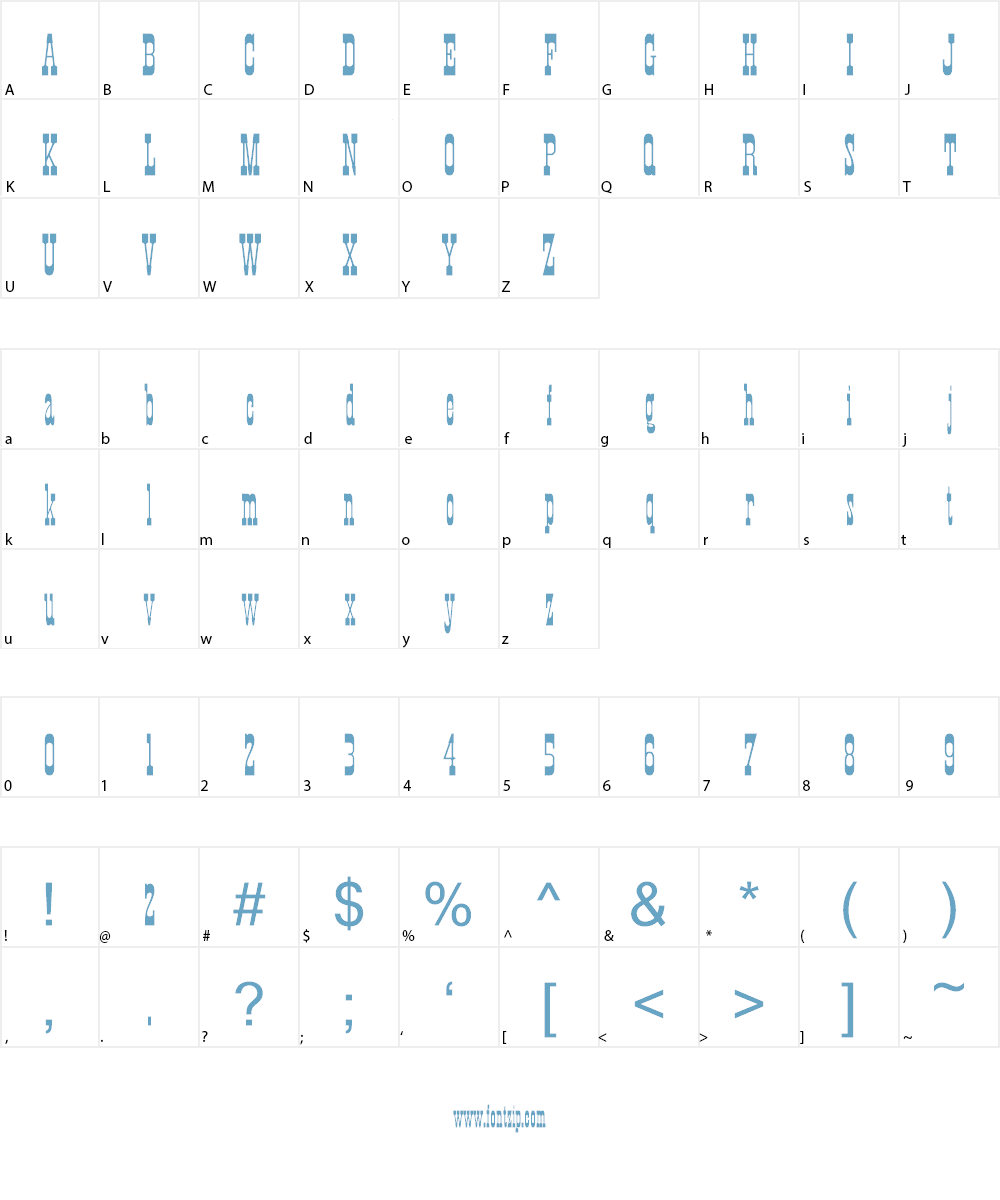
HFF Xmas Hoedown is based on Kid Ory B, from page 51 of "Condensed
Alphabets: 100 Complete Fonts" by Dan X. Solo. Kid Ory B is also shown
on page 37 of "The Solotype Catalog of 4,147 Display Typefaces."
Kid Ory B, as published in Condensed Alphabets, does not have numbers.
The numbers in HFF Xmas Hoedown were created using the uppercase of Kid
Ory B.